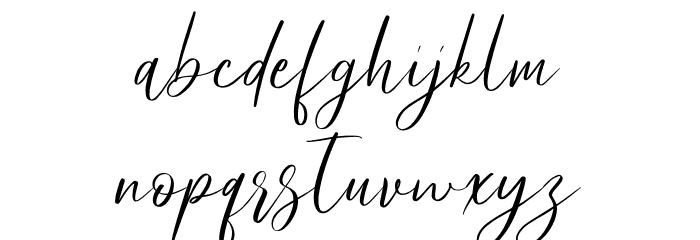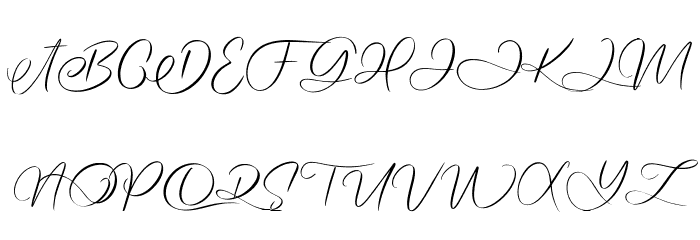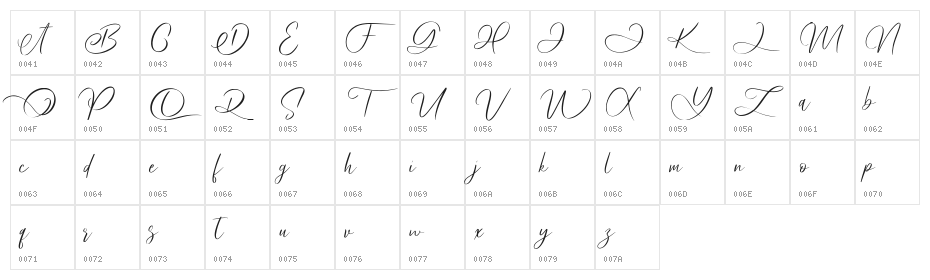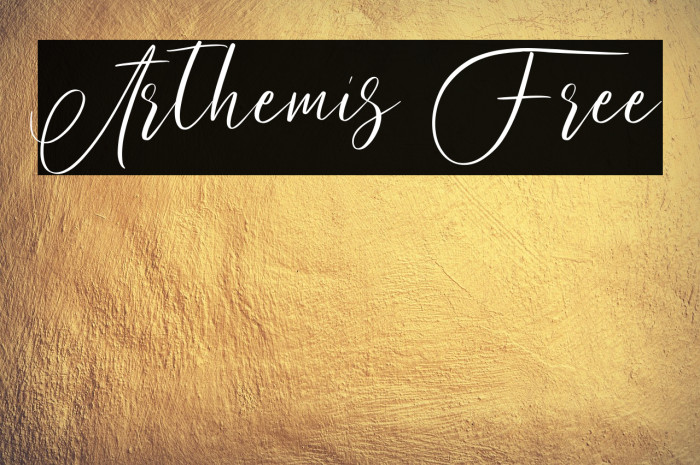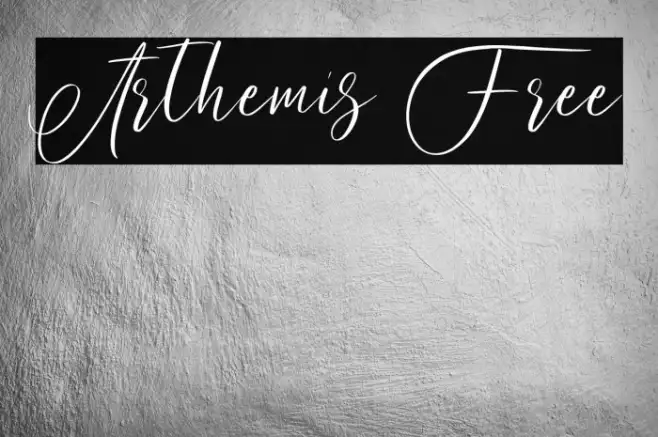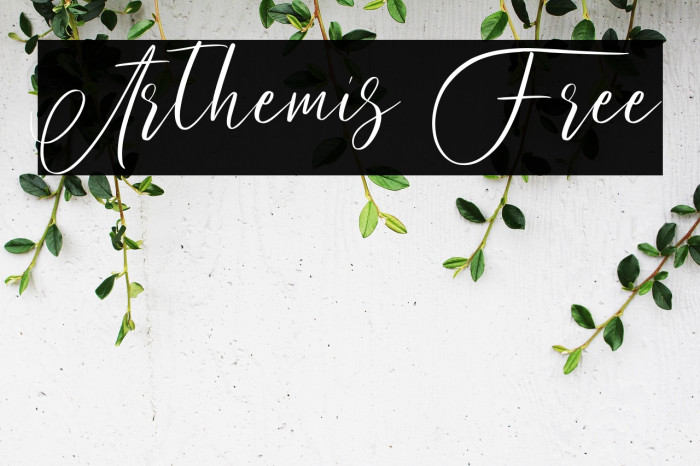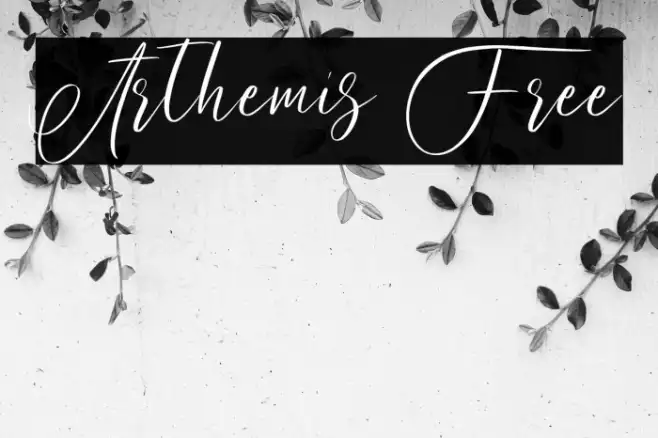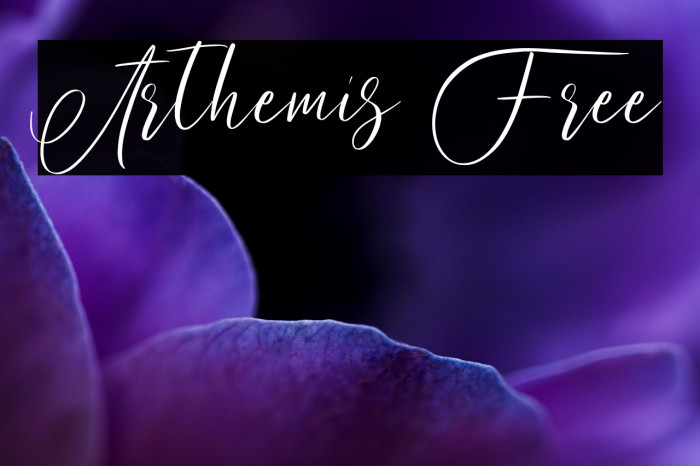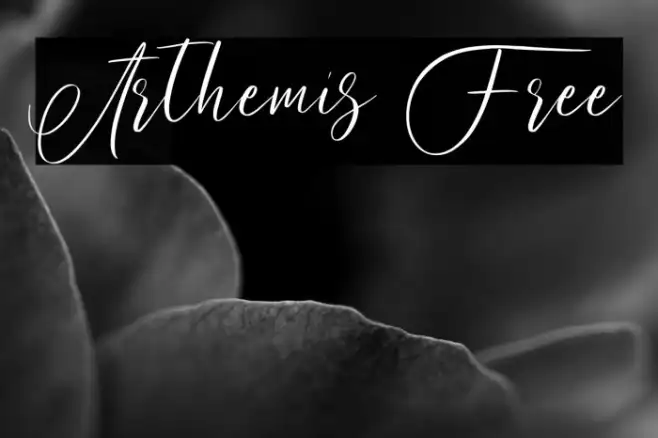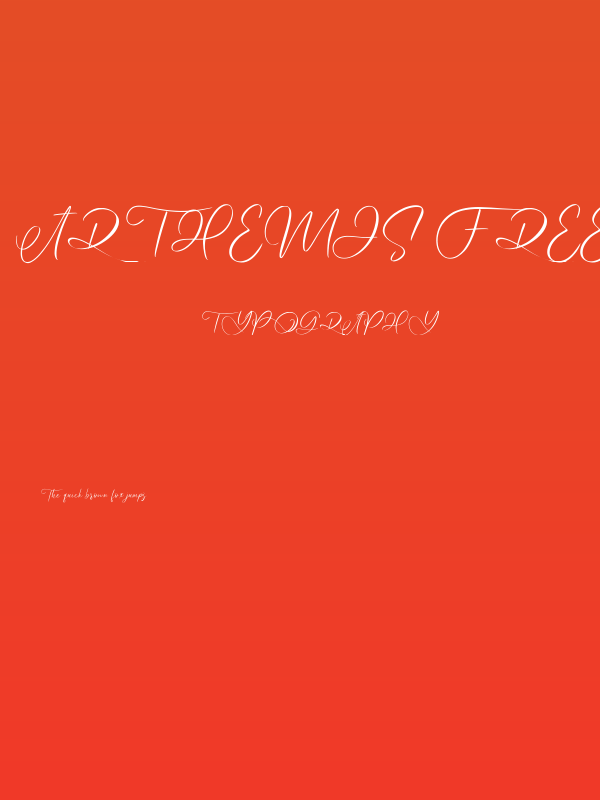
Arthemis Free Font
This elegant script font features a flowing, cursive style with intricate swashes and loops, creating a sense of sophistication and grace. The uppercase letters are adorned with elaborate flourishes, while the lowercase letters maintain a more restrained yet still decorative appearance. The font's delicate strokes and smooth curves give it a refined and artistic look, making it suitable for formal and creative applications. Its overall design exudes a sense of luxury and timeless beauty, perfect for projects that require a touch of elegance.
An elegant script font with flowing, cursive style and intricate swashes.
- Proposed Projects: Ideal for wedding invitations, luxury branding, greeting cards, and elegant packaging.
- Overall Style: Elegant, Decorative
- Use Case: Logos, Invitations, Decorative text